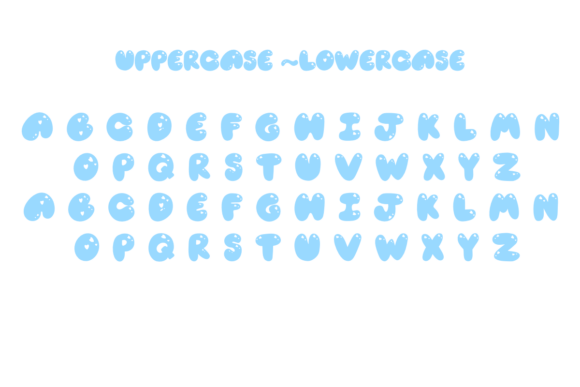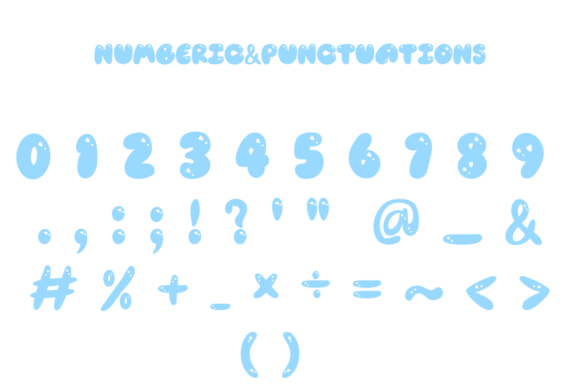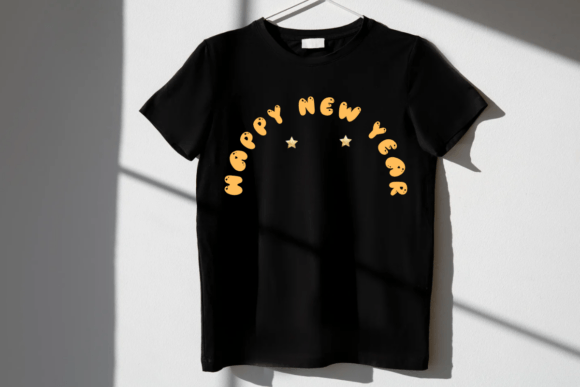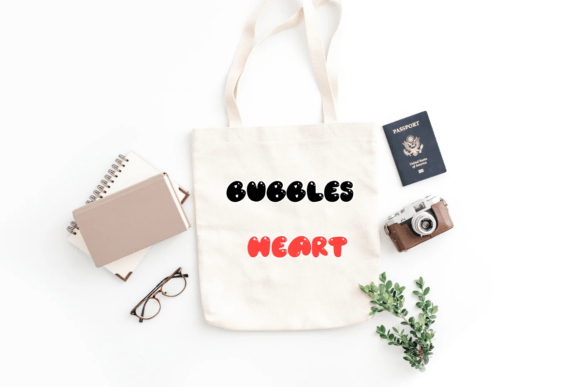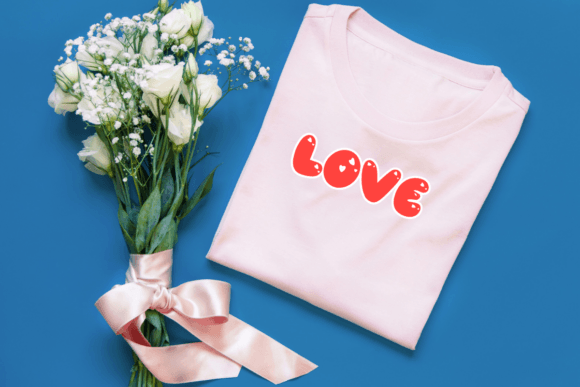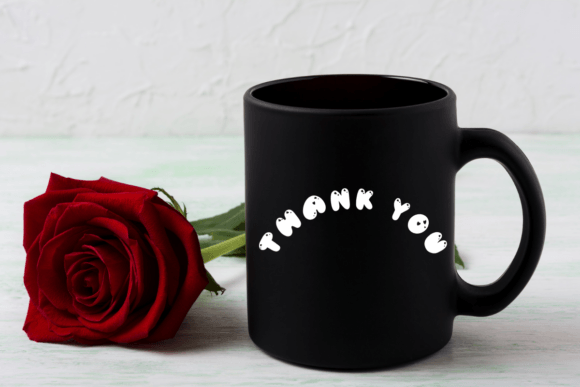
The Joy of Handwritten Charm: Bubbles Heart Font
Have you ever sat down with a pen and paper, and let your imagination flow onto the page? The feeling of creating something unique and personal is like a breath of fresh air, isn’t it? It’s this exact moment of creative freedom that the Bubbles Heart Font embodies. This decorative font is designed to add a touch of whimsy and charm to your written words, making it perfect for taking notes, writing a diary, or making greeting cards.
As a designer, you know the value of a versatile font that can be used across various projects. The Bubbles Heart Font is a hidden gem that can elevate your designs from simple to stunning. Whether you’re creating banners, content, mugs, cards, or social media posts, this font is sure to add a playful and romantic touch.
Bubbles Heart Font Key Features
- Unique Characteristic: Distinctive bubble and heart design elements, perfect for creating playful and romantic designs
- Font Style: Comes in two styles, Regular and Outline, allowing for flexibility in design applications
Bubbles Heart Font Review
Overall, I think Bubbles Heart Font is a lovely, playful font that can add a touch of whimsy to your designs. ✨ Its bubbly and rounded edges give it a friendly, approachable feel that’s perfect for children’s books, greeting cards, or other projects where you want to convey a sense of joy and innocence. ✨
The font’s unique design elements, such as the varying bubble sizes and the heart-shaped accents, add visual interest and create a sense of movement. ✨ It’s also easy to read, even at smaller font sizes, which is a major plus. ✨
While Bubbles Heart Font is a great choice for many projects, there are some limitations to consider. ⚠️ One of the main drawbacks is its limited character set, which may not be suitable for longer blocks of text. ⚠️ Additionally, the font’s bubbly design may not be the best choice for projects where you need a more formal or serious tone. ⚠️
Final Thoughts
Overall, I think Bubbles Heart Font is a great choice for designers who want to add a touch of fun and playfulness to their projects. Just be aware of its limitations and use it thoughtfully. With its unique design elements and easy readability, it’s a great addition to any font library. ✨
- Unique, bubbly design elements
- Easy to read, even at smaller font sizes
- Perfect for children’s books, greeting cards, and other projects where you want to convey a sense of joy and innocence
- Limited character set may not be suitable for longer blocks of text
- May not be the best choice for projects where you need a more formal or serious tone
Tips for Getting the Most Out of the Bubbles Heart Font
To get the most out of the Bubbles Heart Font, try using it in combination with other playful fonts or graphics. Experiment with different font sizes and styles to create a unique and eye-catching look.
The Bubbles Heart Font is perfect for creating Valentine’s Day cards, wedding invitations, or other romantic designs. It’s also great for adding a touch of whimsy to children’s party invitations or birthday cards.
Alternatives to Bubbles Heart Font
Great Vibes is a beautiful, cursive script font ideal for creating a whimsical and romantic atmosphere. It features elegant swashes and flowing connections, making it perfect for wedding invitations, greeting cards, and other special occasions.
Comparison to Bubbles Heart Font: Great Vibes has a more refined and sophisticated look compared to Bubbles Heart Font’s playful and bubbly feel. Great Vibes is better suited for formal or elegant designs, while Bubbles Heart Font is more suitable for casual or playful designs.